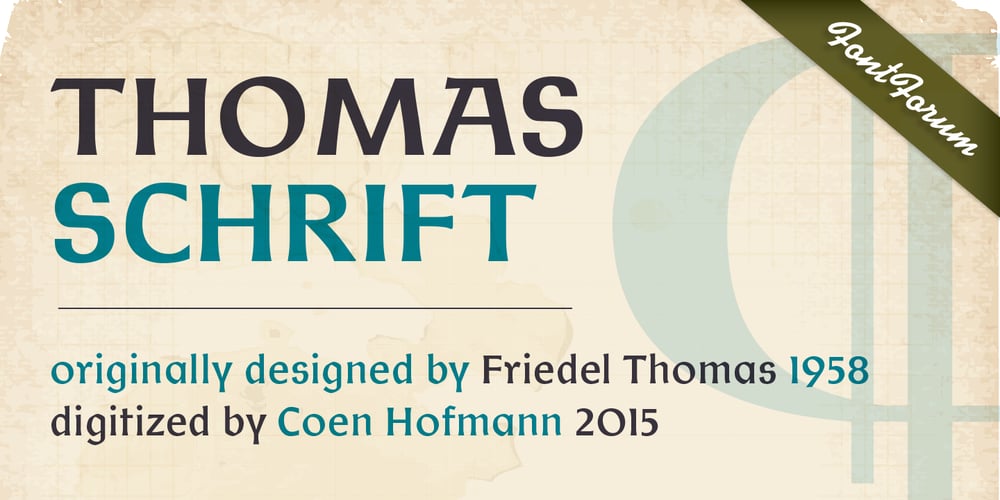
ThomasSchrift Font Family was designed by Coen Hofmann and published by URW Type Foundry. ThomasSchrift contains 1 styles and family package options. Since better (larger) text samples were available for Thomas Versalien, this font is closer to it’s original.